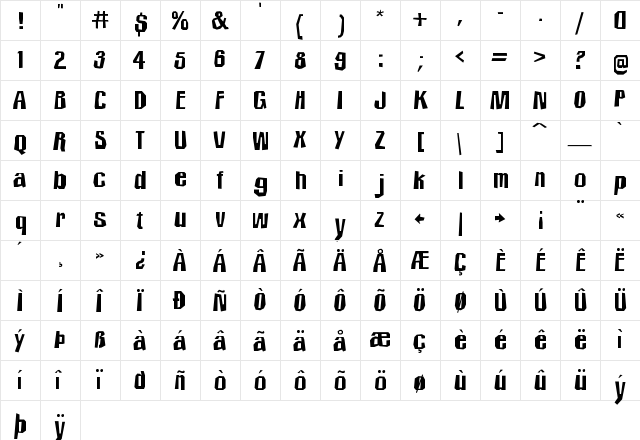
Icicle Country 2 Regular
Design Context for Icicle Country 2 Typeface
Icicle Country 2 is a composed and adaptable typeface that performs quietly and consistently across a wide range of design contexts.